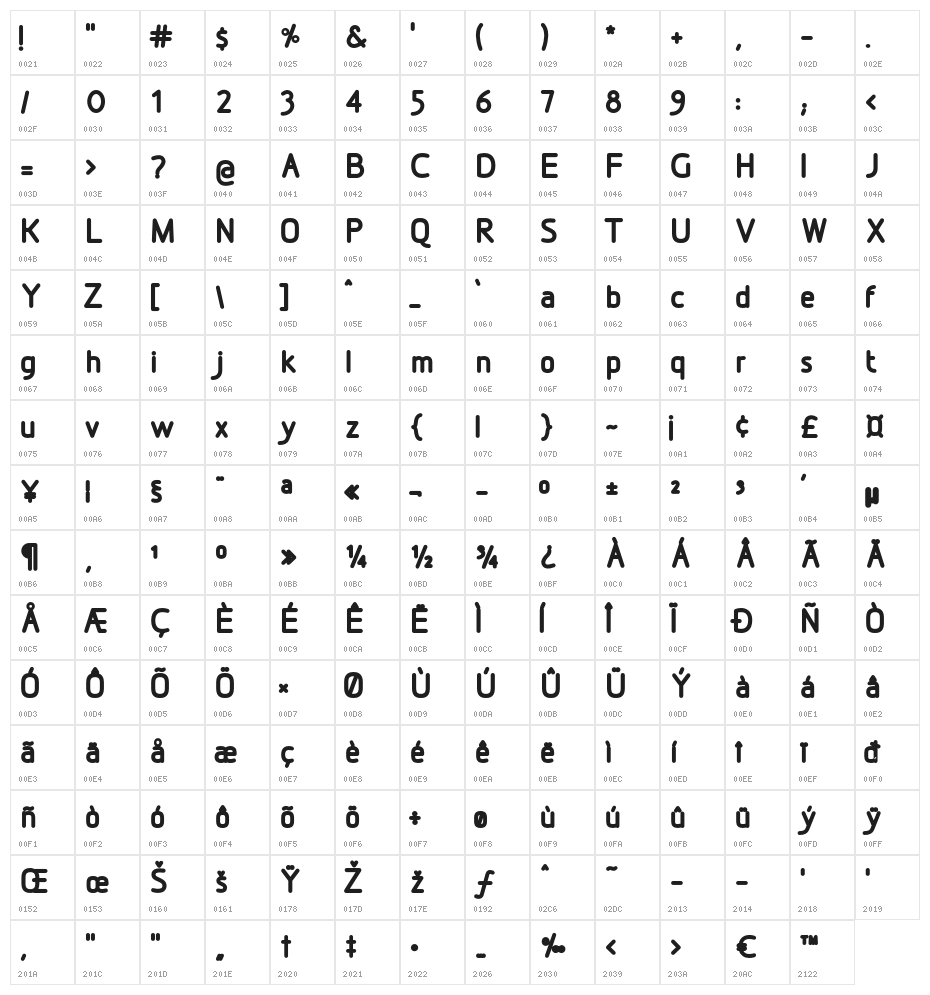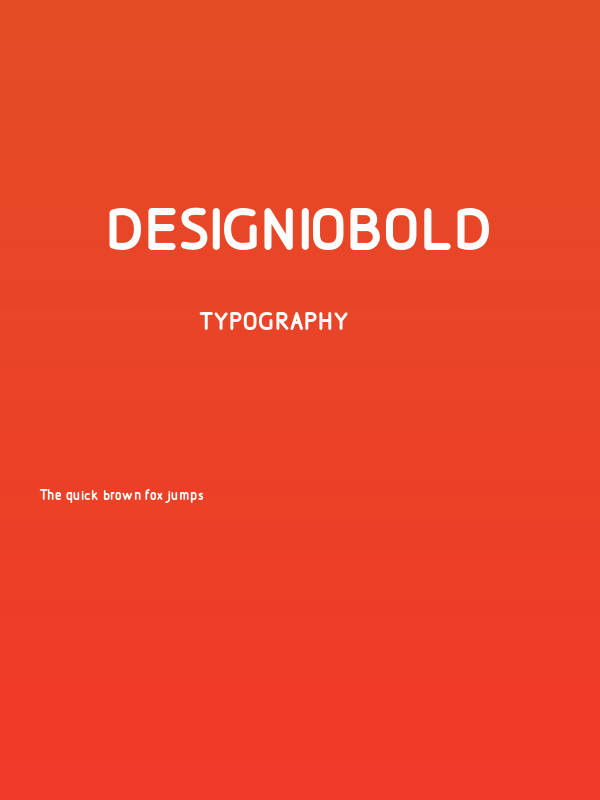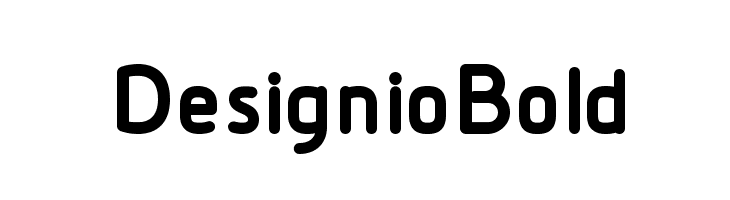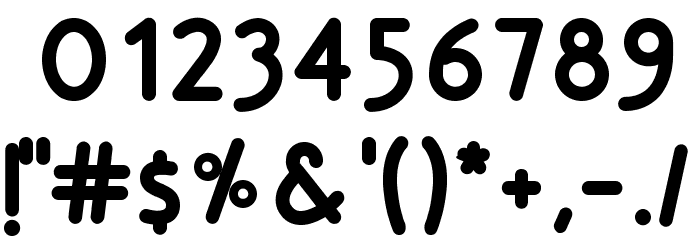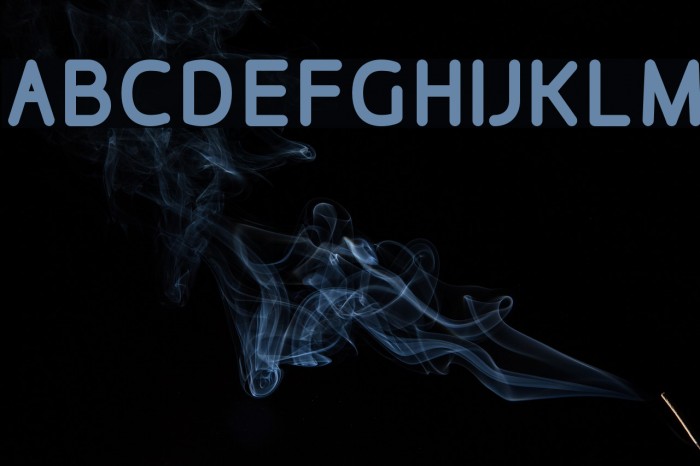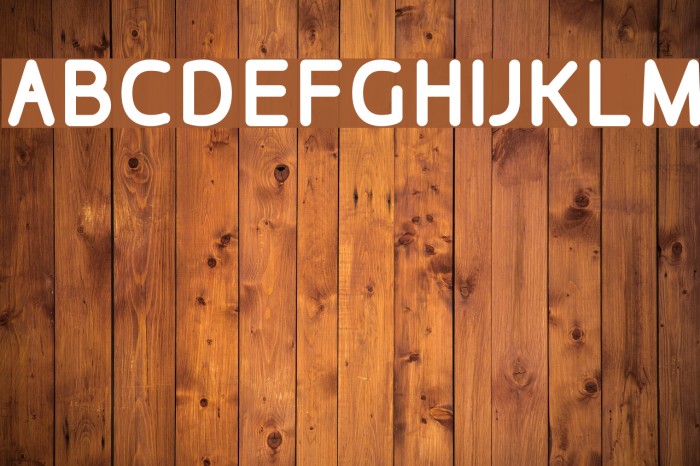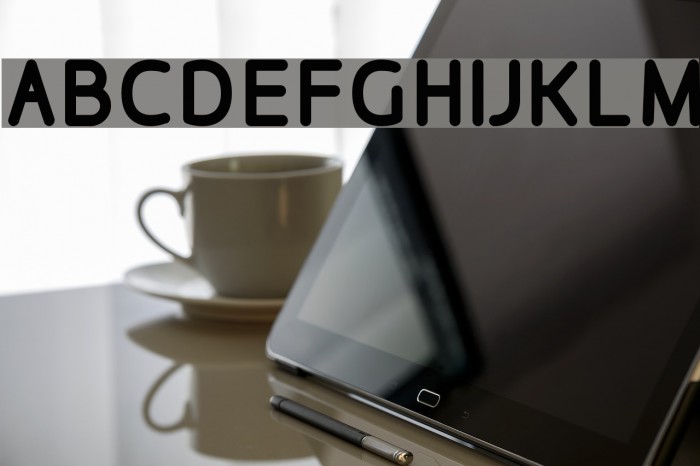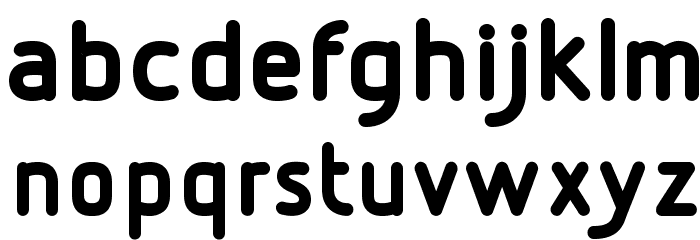
DesignioBold Font
| 用途 | Headlines, Logos, Branding |
| おすすめプロジェクト | Ideal for branding, headlines, posters, and digital content where a modern and friendly look is desired. |